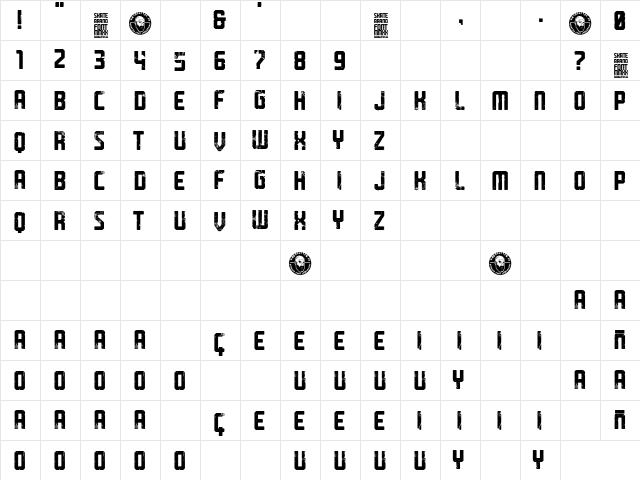
Skate Brand Regular
| Designer | Woodcutter Manero |
Design Context for Skate Brand Typeface
Skate Brand is a composed and adaptable typeface that performs quietly and consistently across a wide range of design contexts.